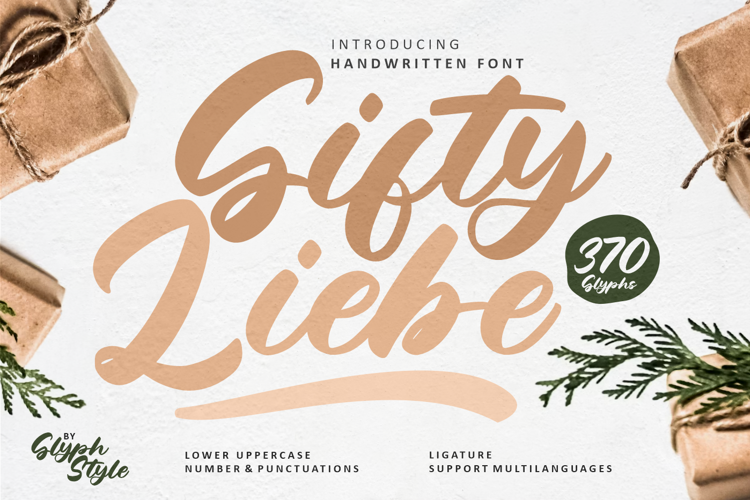
Gifty Liebe Font
Gifty Liebe is a very familiar, cursive handwritten font that is perfect for crafting or DIY designs. Also very suitable for greeting cards, gifts etc